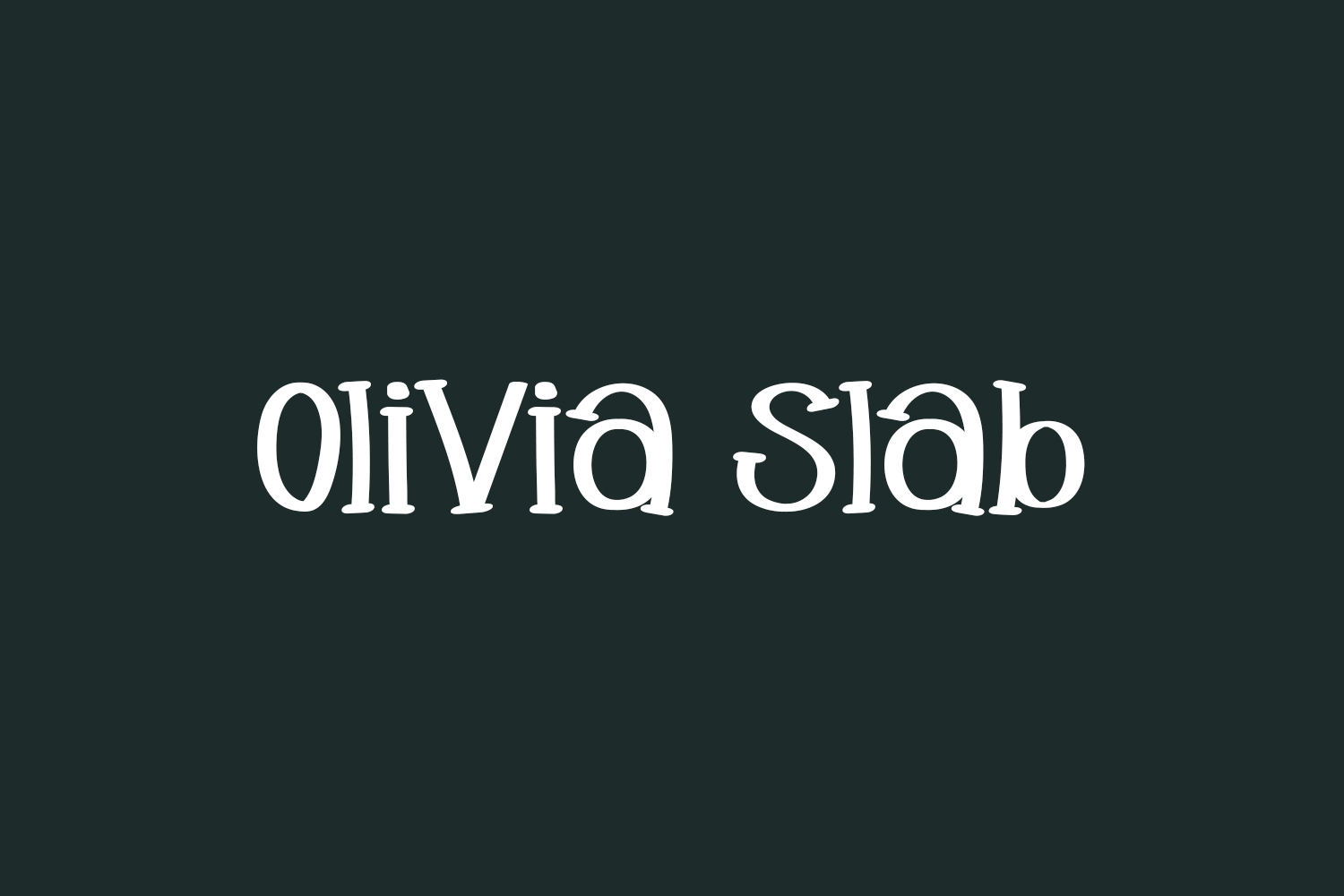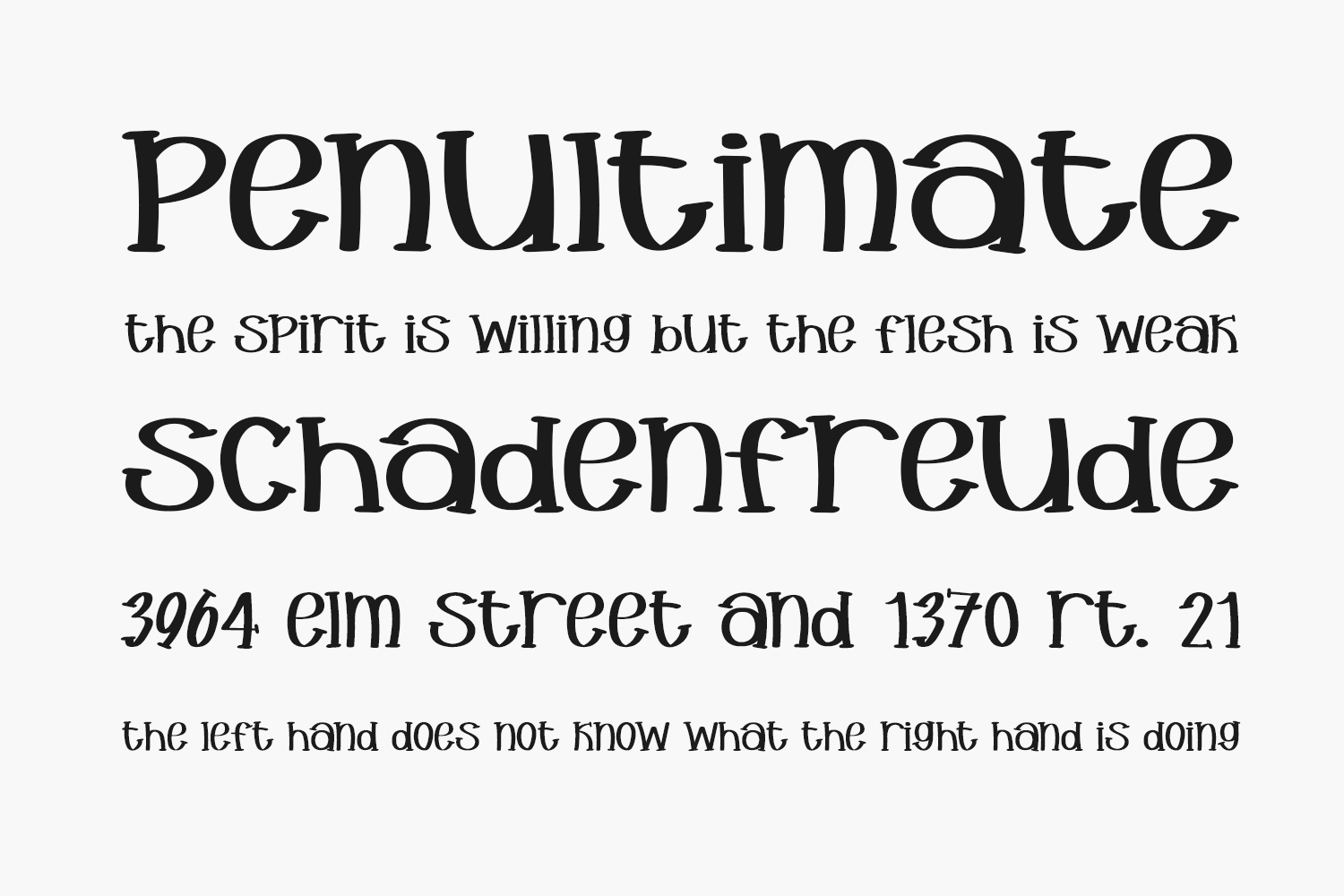
Olivia Slab Free Font is a delightful typeface that belongs to the fancy family, its characters have slab texture with some fancy appearance. The font style is designed in a unique way because it provides playful and fancy influence at the same time. Olivia Slab Free Font contains an OTF feature with Lowercase letters, numbers, symbols, and useful punctuations. The font style has a pairing personality with Gotham font which can fit smoothly with typeface and works smoothly. It is great for logos, brochures, banners, wallpapers, illustrations, graffiti designs, all kinds of covers, body text, heading, and much more. Olivia Slab Free Font was designed by Fontles and is free for personal use only. Please purchase the full version for commercial use.